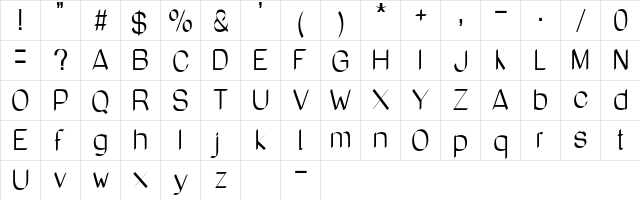
SeNSKY DEMO Regular
Design Context for SeNSKY DEMO Typeface
SeNSKY DEMO offers clean, dependable letterforms without strong stylistic allegiance, making it a practical choice for designers who need flexibility.
Pro Tip: Use SeNSKY DEMO in both headline and body roles to test its range before committing to a single application.